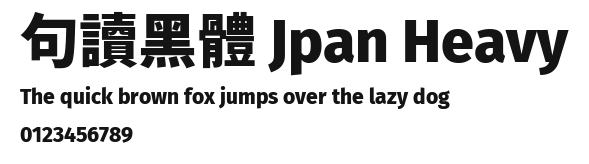
句讀黑體 Jpan Heavy Preview
About 句讀黑體 Jpan Heavy.ttf
句讀黑體 Jpan Heavy.ttf is a modern, elegant sans-serif font designed for ultimate readability and visual harmony. Perfect for branding, headlines, web design, and print materials.